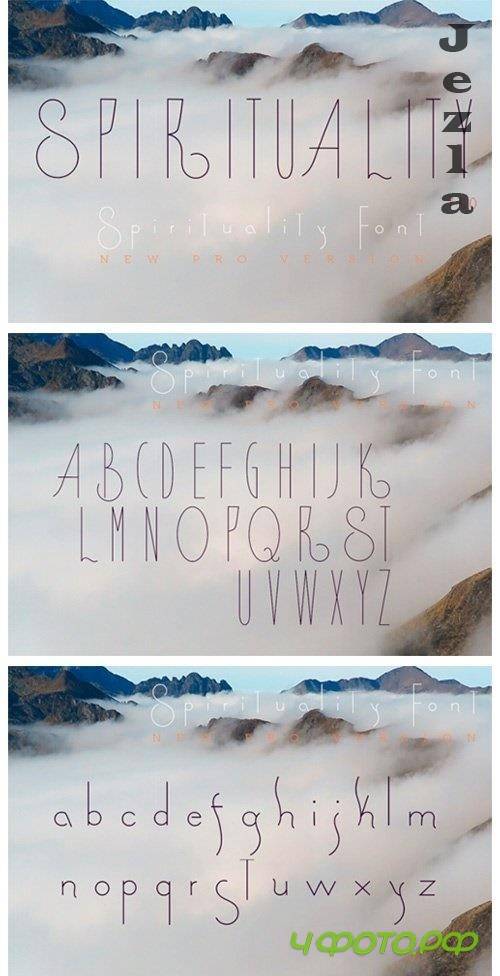
Spirituality Font
Spirituality is a unique and neat lettered handwritten font. Its quirky style makes it appear friendly and very versatile. Fall in love with Spirituality and add it to your favorite projects!